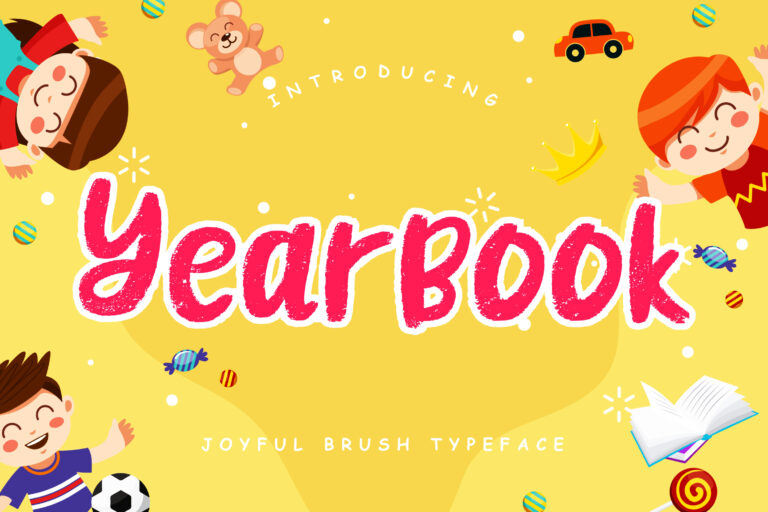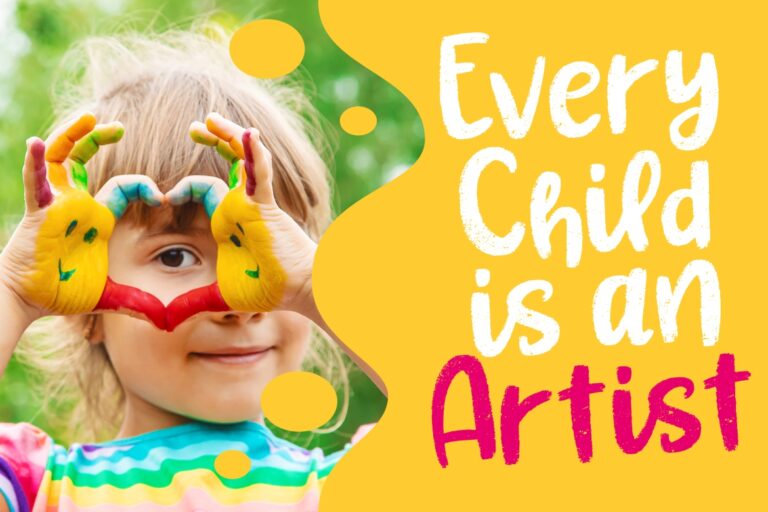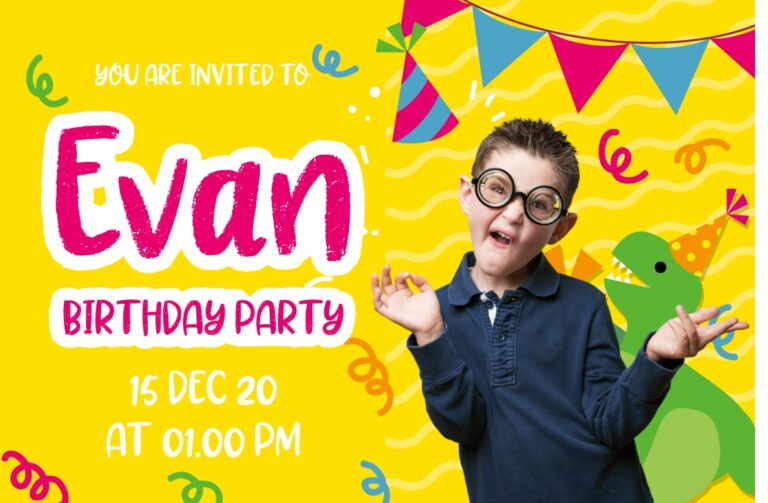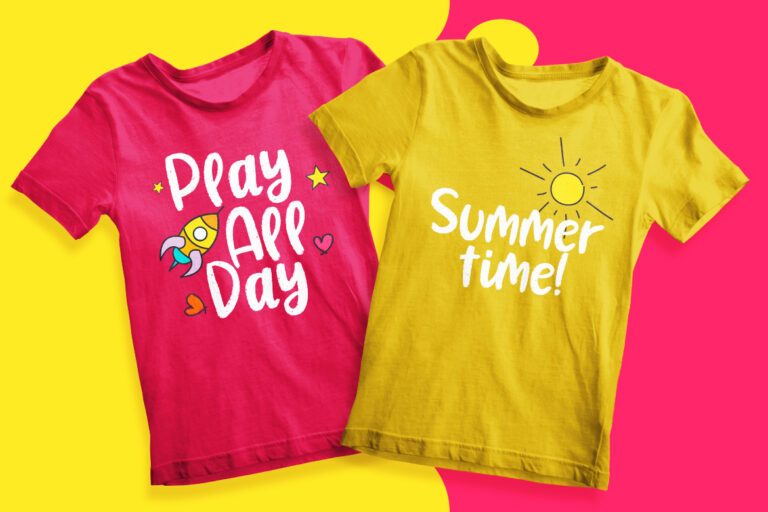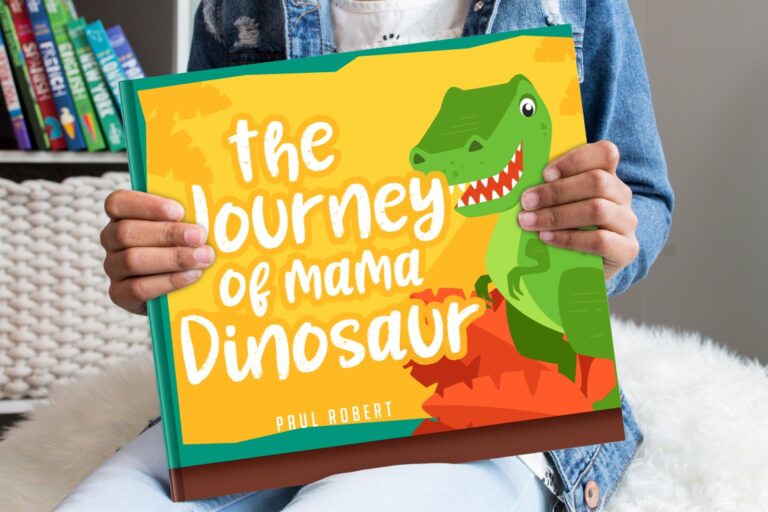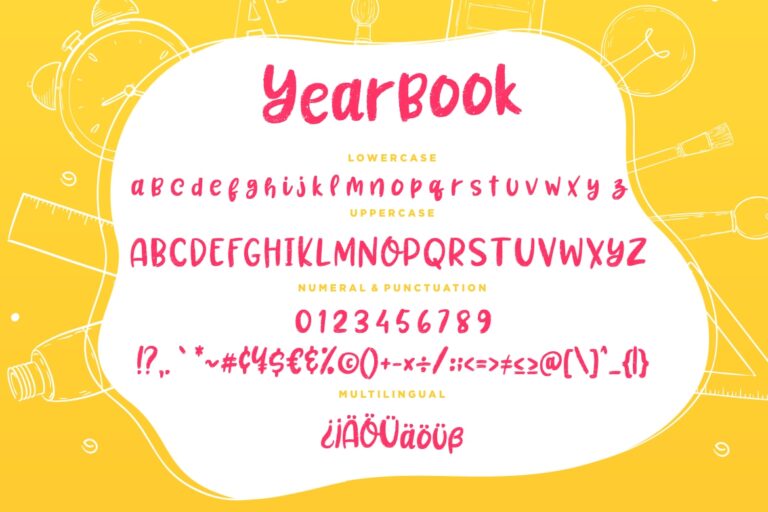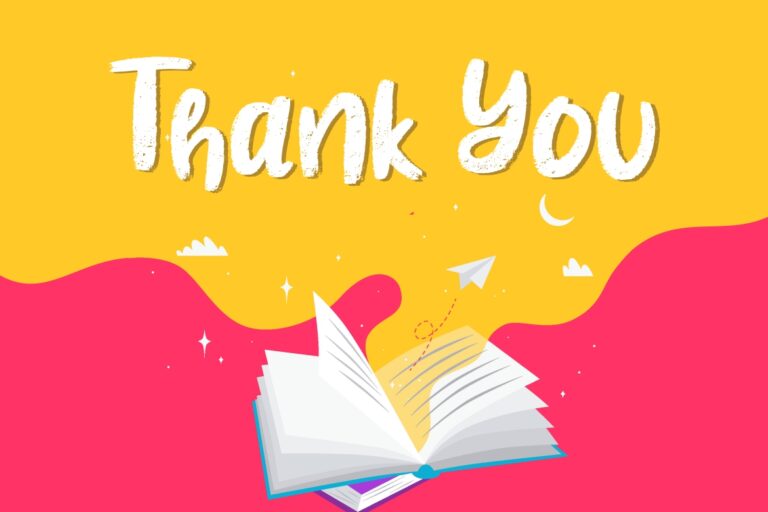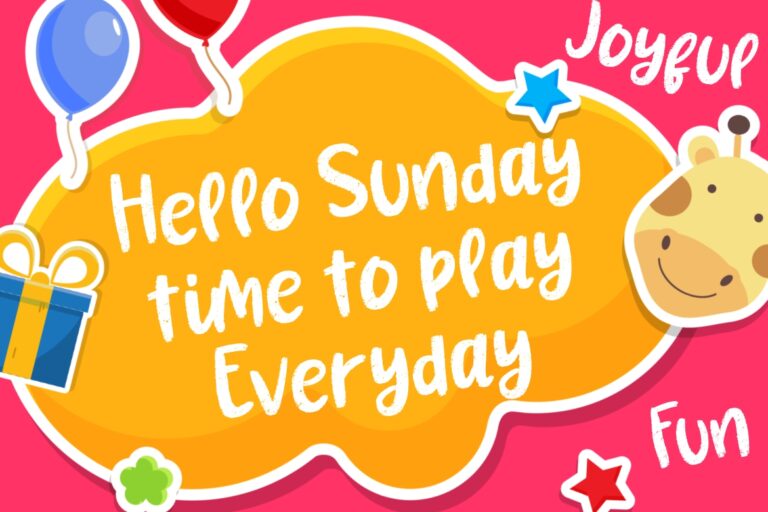
Yearbook is joyful display font which suitable to use for children related event.
Yearbook is perfect for branding projects, logo, wedding designs, social media posts, advertisements, product packaging, product designs, label, photography, watermark, invitation, stationery and any projects that need handwriting taste.
- Fonts include multilingual support for; ä ö ü Ä Ö Ü ß ¿ ¡
Yearbook Joyful Brush Typeface